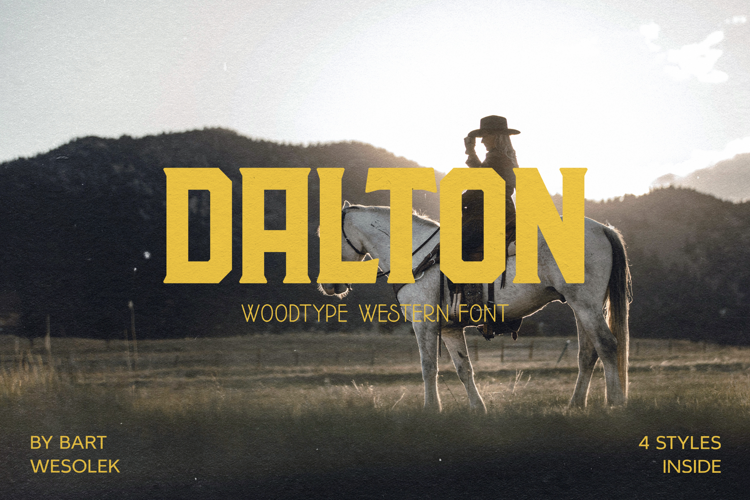
Dalton - Woodtype Western Font
Dalton Clean
Dalton Shadow
Dalton Rough
Dalton Stamp
Dalton is a display font inspired by old western wooden types. Dalton is cool to mix with other fonts for great brandings, labels, letterings, logos and more.
Dalton comes with 4 styles:
• Clean
• Rough
• Shadow
• Stamp